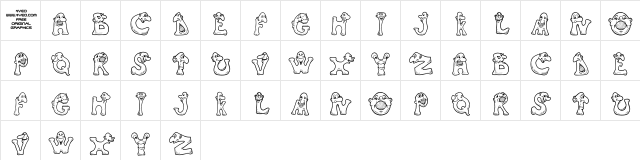
4YEOmonstrum Regular Free Font
4YEOmonstrum Regular
Design Context for 4YEOmonstrum
4YEOmonstrum is a composed and adaptable typeface that performs quietly and consistently across a wide range of design contexts.